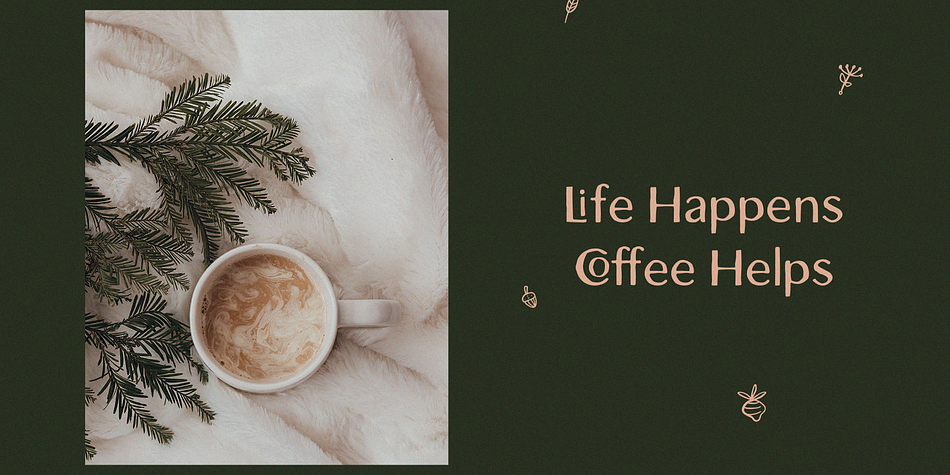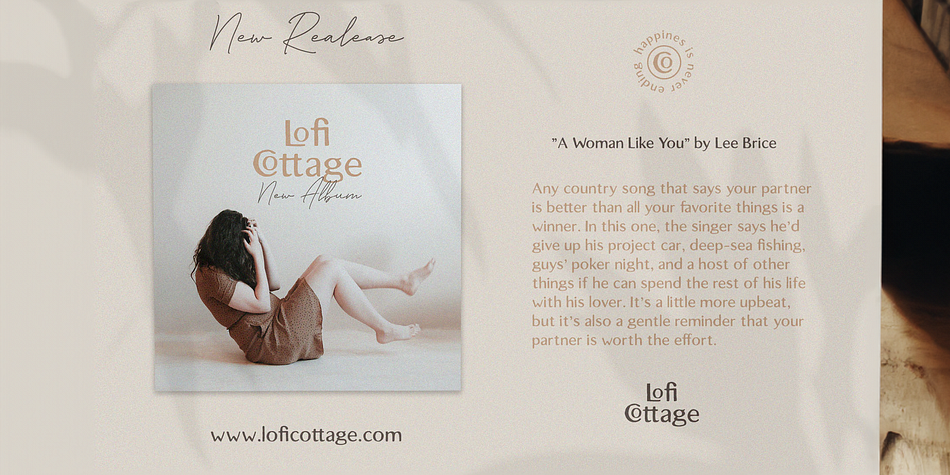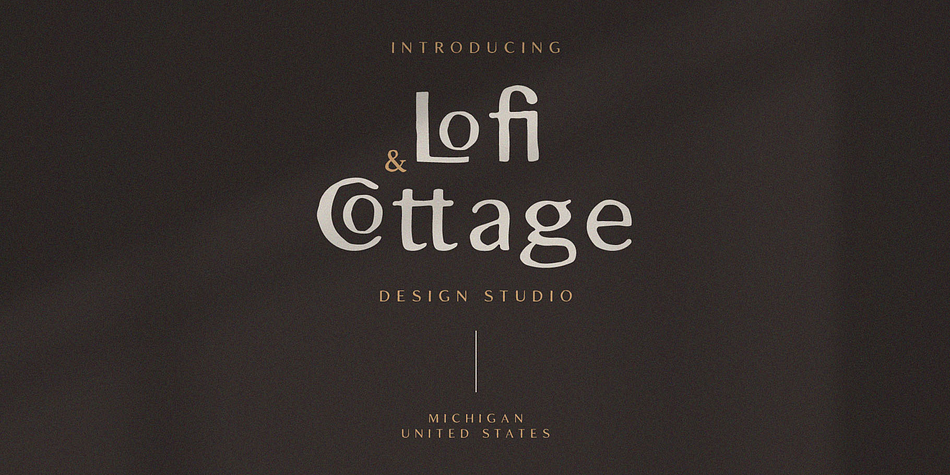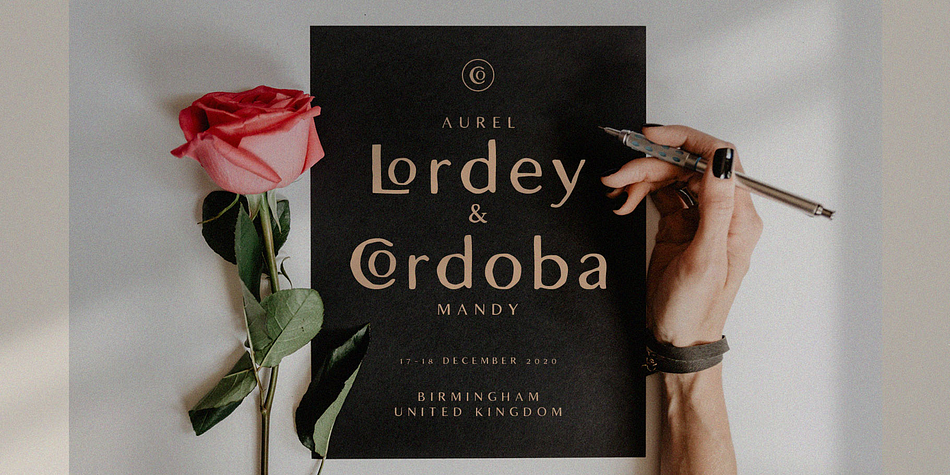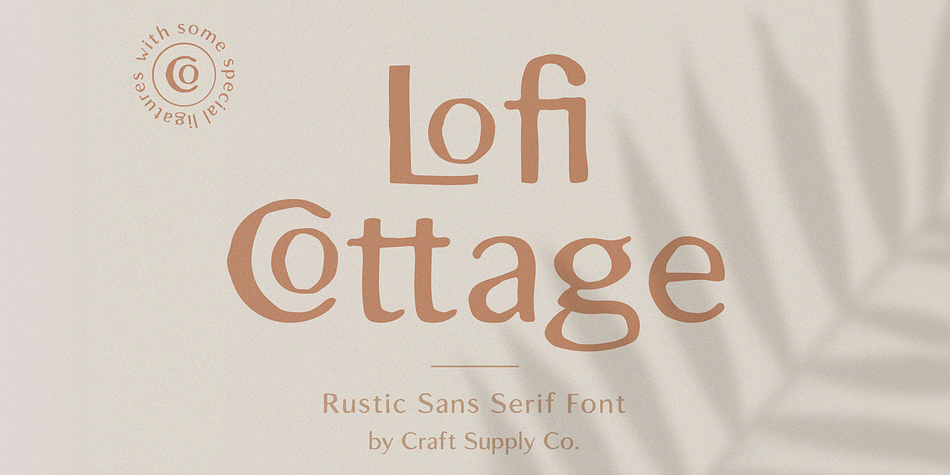
Lofi Cottage
Lofi Cottage is a sans serif font family published by Craft Supply Co.
Introducing Lofi Cottage – Rustic Sans Serif Font.
Introducing Lofi Cottage – Rustic Sans Serif Font. It can be used to create almost all types of design projects like print materials. Just use your imagination and your project will become more alive and look great than ever with Lofi Cottage – Rustic Sans Serif Font.
You want to make a greeting card or a package design, or even a brand identity, craft design, any DIY project, book title, wedding font, pop vintage design, retro design or any purpose to make your art / design project look pretty and trendy? Feel free to play with this fonts!